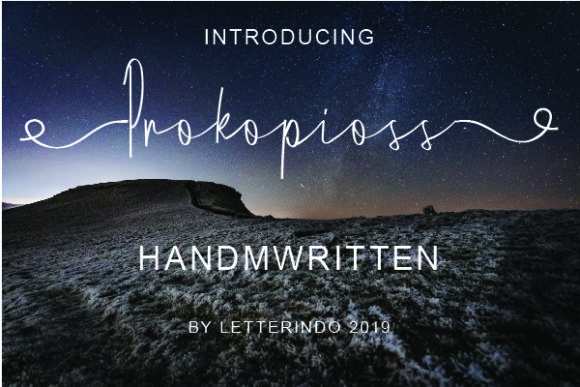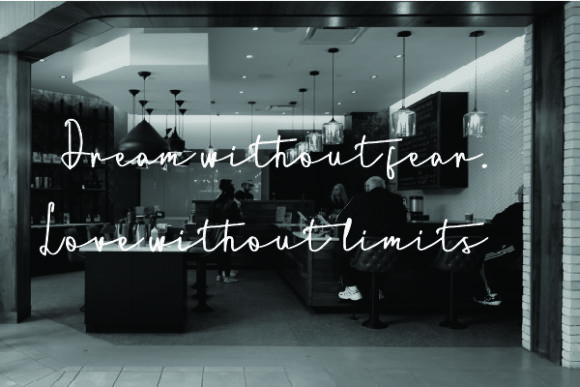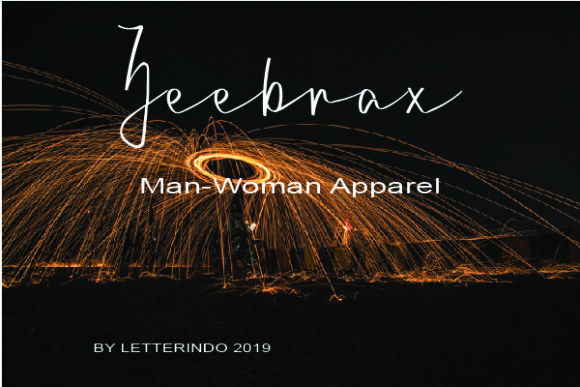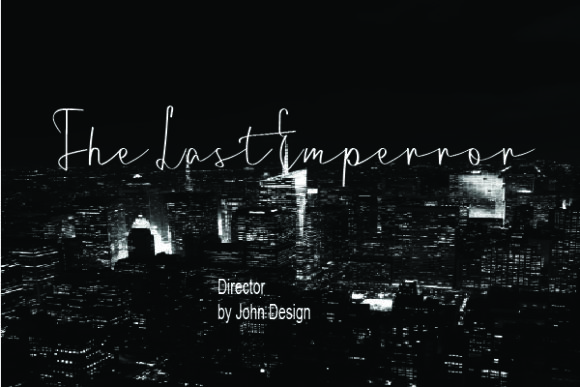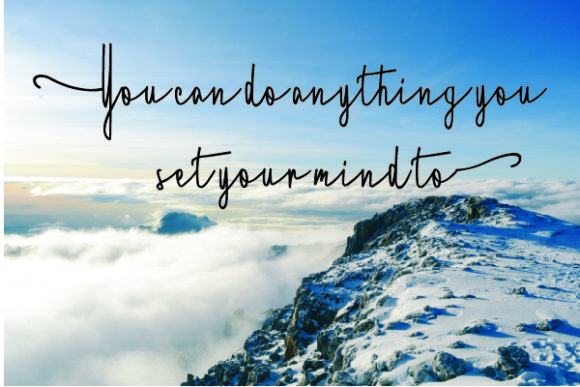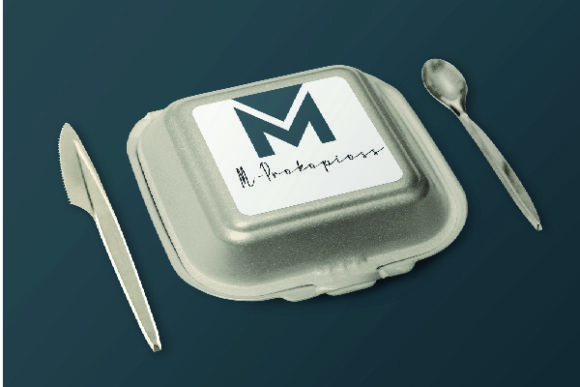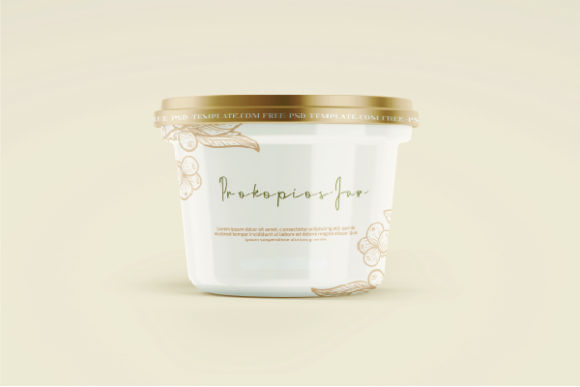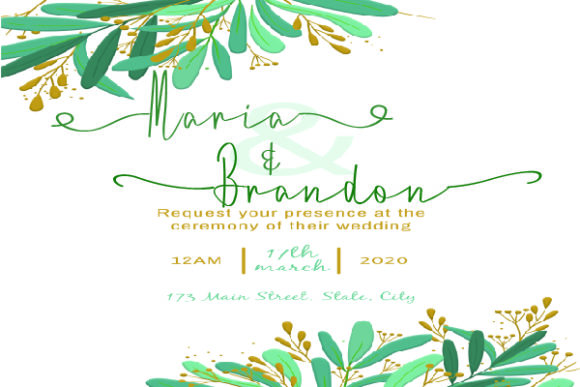
HomeScript FontsProkopioss Font Script Fonts Prokopioss Font FacebookXPinterestWhatsApp Prokopioss Font Poster 2 Prokopioss Font Poster 3 Prokopioss Font Poster 4 Prokopioss Font Poster 5 Prokopioss Font Poster 6 Prokopioss Font Poster 7 Prokopioss Font Poster 8 About Prokopioss Font Prokopioss Script is a very authentic font. This modern font will take any crafting design to the next level! DOWNLOAD ON CREATIVE FABRICAThis font is sold and delivered by Creative Fabrica. Font Canyon may earn a commission if you buy through this link. People also explored Sweetie Summer Font Beauty One Font Okay and Font Jonathan Font Billy Stranger Font Bhailando Midlane Font Florist Monogram Font Winter Spesial Font 308 0 TagsProkopioss Font Previous articleBubble Bobble FontNext articleKalimera Font LEAVE A REPLY Cancel reply Comment: Please enter your comment! Name:* Please enter your name here Email:* You have entered an incorrect email address! Please enter your email address here Website: Save my name, email, and website in this browser for the next time I comment. Personal Use Free Potato Pancakes Personal Use Free Read more about this font Bahjera Personal Use Free Read more about this font Splatter Splash Personal Use Free Read more about this font Messages Personal Use Free Read more about this font BLOG To increase your work productivity, choose the most readable fonts. In today's fast-paced work environment, where digital communication and information consumption are integral to our daily routines, the choice of fonts can significantly impact... How to Cut Any Font on Cricut: Convert a Font to SVG (Free) Exploring Font Trends Top 7 Google Fonts Alternatives for Faster and Privacy-Friendly Web Design (2025)